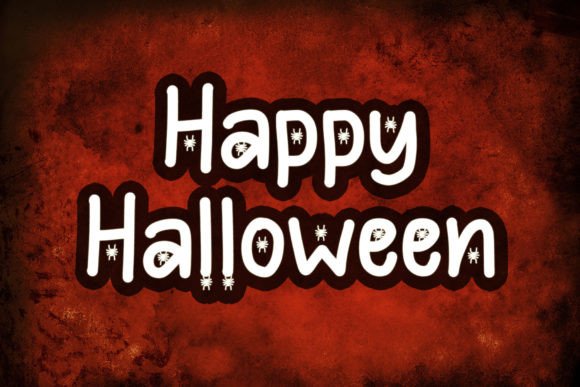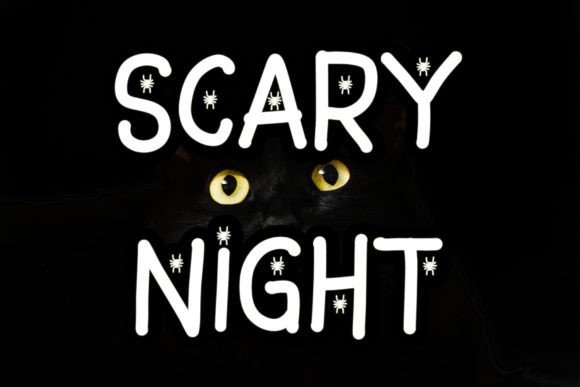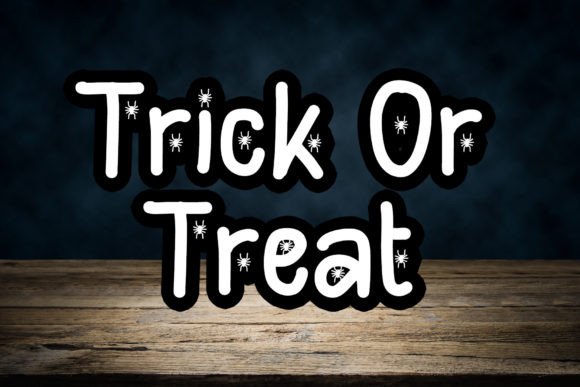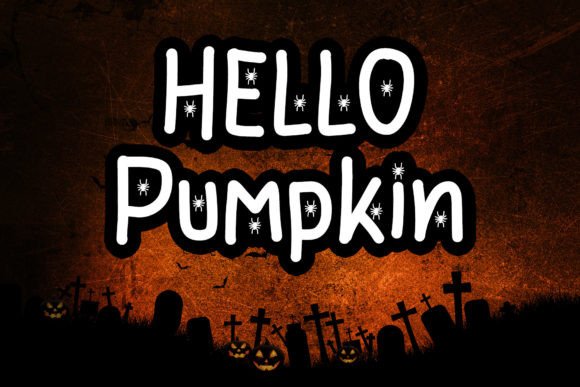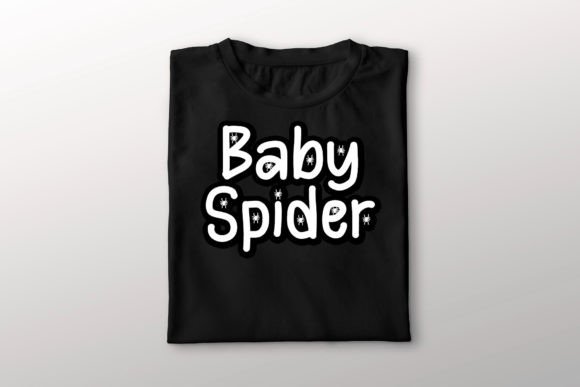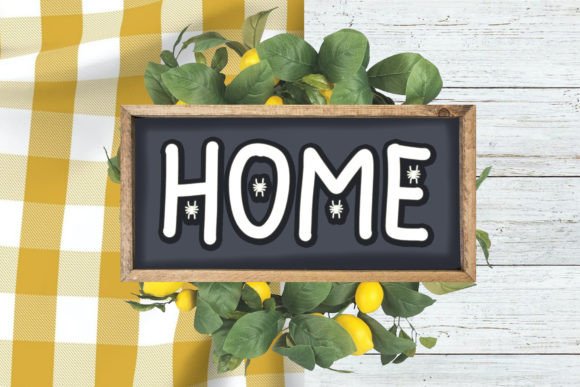
Introduction to Hello Spider Font
Hello Spider is a Spider decorative font.
Add it to your Halloween crafts, horror movie posters, t-shirts, and anything else that requires a spectacular look .
Key Features of Hello Spider Font